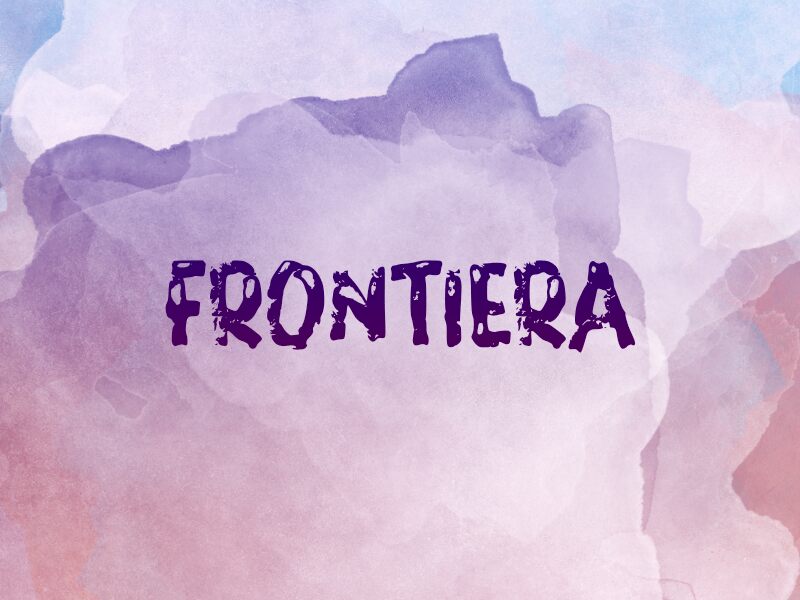
FRONTIERA
Frontiera, a bold and eroded display font, exudes an alluring sense of weathered resilience. Designed by wep, this captivating typeface seamlessly blends the rugged elegance of industrial aesthetics with a touch of raw, organic charm.
Its sturdy, bold letterforms convey a commanding presence, while the distressed, eroded finish lends an intriguing, textured quality.
Frontiera's versatility shines through, making it a prime choice for a wide range of design applications, from eye-catching headlines and impactful branding to gritty, urban-inspired layouts.
This font's distinctive character and visual impact effortlessly capture the essence of strength, resilience, and a touch of the unconventional, making it a true standout in the realm of display typography.
Its sturdy, bold letterforms convey a commanding presence, while the distressed, eroded finish lends an intriguing, textured quality.
Frontiera's versatility shines through, making it a prime choice for a wide range of design applications, from eye-catching headlines and impactful branding to gritty, urban-inspired layouts.
This font's distinctive character and visual impact effortlessly capture the essence of strength, resilience, and a touch of the unconventional, making it a true standout in the realm of display typography.